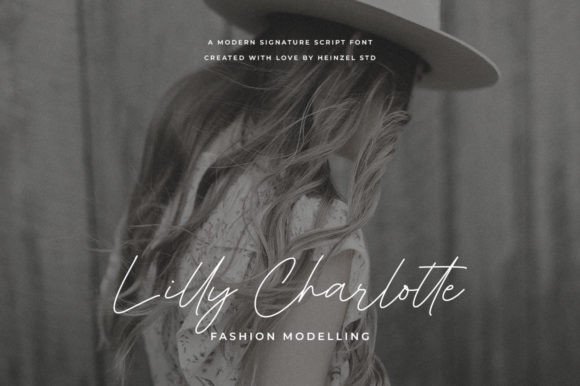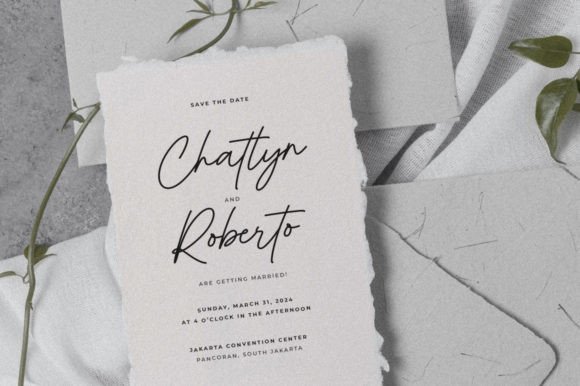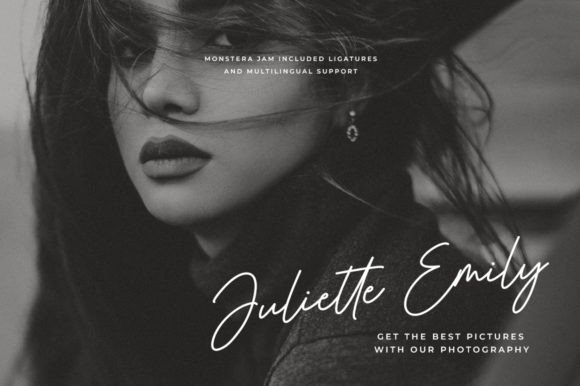
Introduction to Monstera Jam Font
Have you ever sat down with a blank canvas, a spark of creativity, and a dream to bring your vision to life? For designers, this moment is a thrill that never gets old. And, what’s even more exciting is finding the perfect design resource to elevate your creative project. If you’re on the hunt for a font that exudes elegance and sophistication, look no further than the Monstera Jam Font.
With its flowing, handwritten style, the Monstera Jam Font is a treasure trove of possibilities. Whether you’re designing wedding invitations, thank you cards, or social media graphics, this font is sure to add a touch of whimsy and charm. Plus, with its transparent background and high-quality design, you can trust that your final product will be nothing short of stunning.
Key Features of Monstera Jam Font
- Unique Tropical Design: The Monstera Jam Font features a beautiful, tropical design inspired by the Monstera plant, making it a great design resource for creative projects.
Honest Review: Monstera Jam Font
As a designer, I’m always on the lookout for new design resources to elevate my creative projects. Recently, I had the chance to work with the Monstera Jam Font, and I’m excited to share my honest review.
- ✨ Unique and stylish design: The Monstera Jam Font has a distinctive, playful feel that adds a touch of whimsy to any project.
- ⚠️ Limited language support: The Monstera Jam Font only supports a limited range of languages, which may be a drawback for designers working on multilingual projects.
Overall, I was impressed with the Monstera Jam Font’s unique design and high-quality font files. However, the limitations on language support and the uncertainty surrounding the free download may make it less suitable for certain design projects. If you’re looking for a fun and playful font for a specific creative project, the Monstera Jam Font is definitely worth considering.
Monstera Jam Font
The Monstera Jam Font is a versatile and high-quality design resource that can elevate any creative project. With its unique aesthetic and transparent background, this font is perfect for designers looking for a distinctive look.